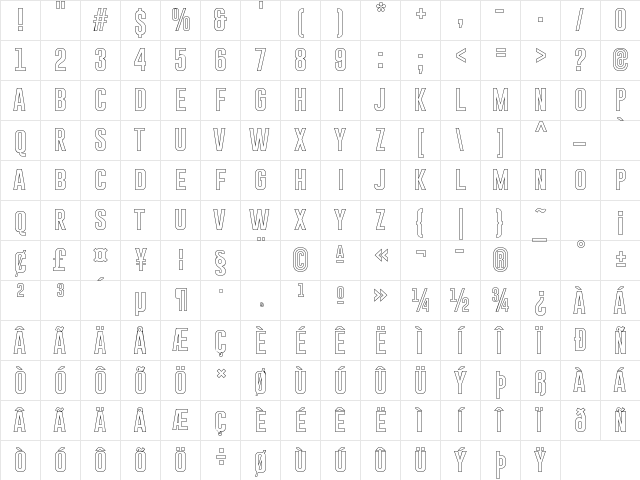
Gobold Hollow Regular
| Designer | Situjuh Nazara |
Design Context for Gobold Hollow Typeface
Gobold Hollow is a composed and adaptable typeface that performs quietly and consistently across a wide range of design contexts. The heavy weight commands attention and anchors typographic hierarchies.